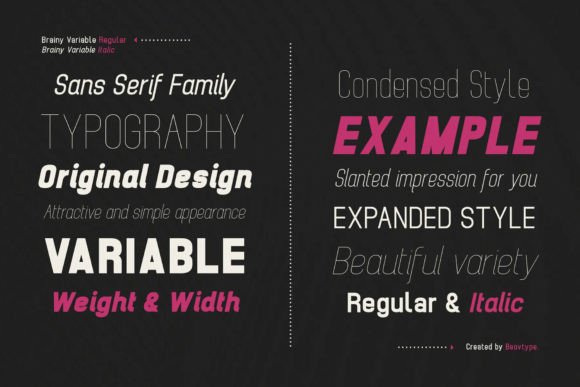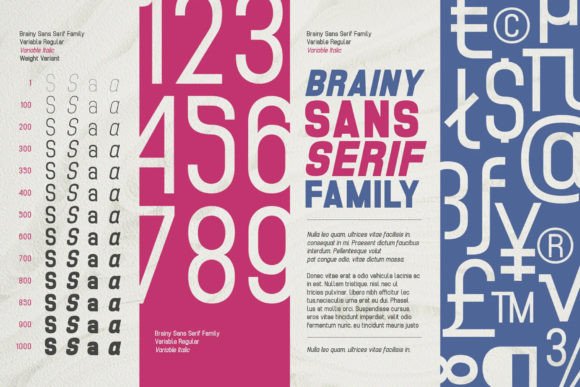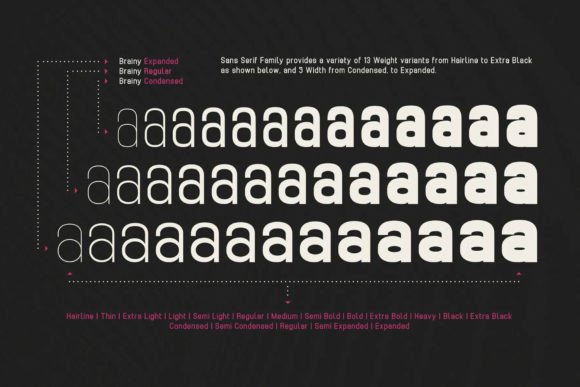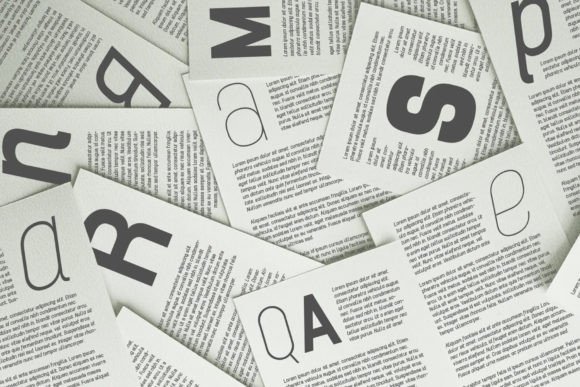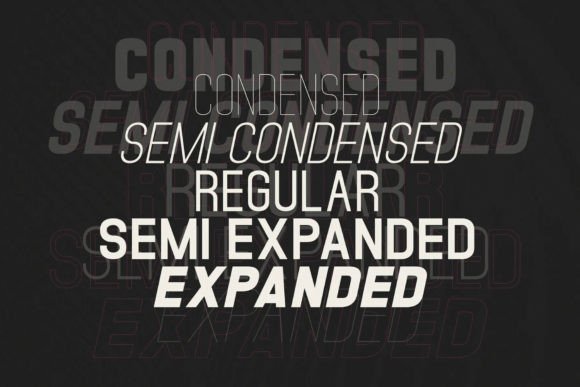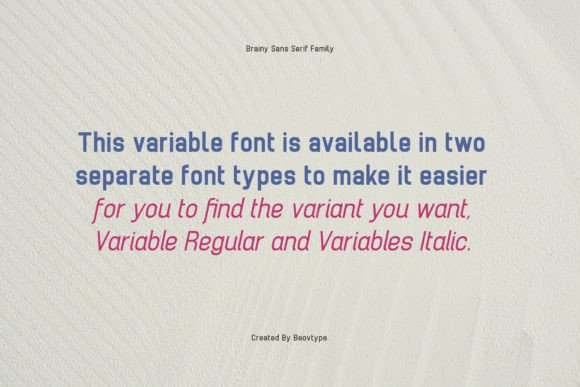
Unlock the Power of Clean Design with Brainy Variable Font
Have you ever stared at a blank page, struggling to bring your creative vision to life? It’s a familiar feeling for many designers, but what if the perfect font could be the key to unlocking your full potential? Enter Brainy Variable Font, a sleek and modern sans-serif typeface designed to elevate your designs and captivate your audience.
Brainy Variable Font is more than just a font – it’s a versatile tool for designers looking to create engaging, easy-to-read content. Its clean lines and simple letterforms make it perfect for digital and print projects alike, from websites and social media graphics to posters and brochures. With Brainy Variable Font, you can trust that your message will shine through with clarity and sophistication.
Key Features of Brainy Variable Font
- Variable Font Technology: Supports continuous font weight, width, and slant variations
- Unique Characteristic: Brainy Variable Font features a unique blend of modern and vintage design elements, making it suitable for a wide range of applications, from digital products to editorial content
- Language Support: Supports over 150 languages, including Latin, Cyrillic, and Greek scripts
Designer Review: Brainy Variable Font
Overall, I’m quite impressed with the Brainy Variable Font. ✨ It’s clear that the designers have put a lot of thought into creating a font that’s both stylish and functional. Here are some of the things that really stand out:
- ✨ The font’s variable design allows for a wide range of uses, from body text to display headings.
- ✨ The font’s weight and width axes are well-designed, making it easy to adjust the font’s appearance to suit different contexts.
- ✨ The font’s glyph set is comprehensive, with a wide range of characters and symbols included.
That being said, there are a few limitations that should be noted:
- ⚠️ The font’s kerning could be improved, particularly for certain combinations of characters.
- ⚠️ The font’s italic styles could be more polished, particularly at smaller font sizes.
Overall, I think the Brainy Variable Font is a great addition to any designer’s toolkit. While it’s not perfect, it’s clear that the designers have put a lot of thought and effort into creating a high-quality font. With a bit of tweaking and refinement, I think this font could be truly exceptional.
Getting the Most Out of Brainy Variable Font
1. Experiment with different font weights and styles to achieve a unique look.
2. Use the font’s variable features to create custom font weights and styles.
3. Combine Brainy Variable Font with other fonts to create a visually appealing design.
4. Use the font in creative ways, such as using it for headings, body text, or even logos.
1. Headings and titles: Use Brainy Variable Font to create eye-catching headings and titles.
2. Body text: Use the font’s variable features to create custom font weights and styles for body text.
3. Logos and branding: Use the font to create a custom logo or branding identity.
4. Infographics and presentations: Use the font to create visually appealing infographics and presentations.